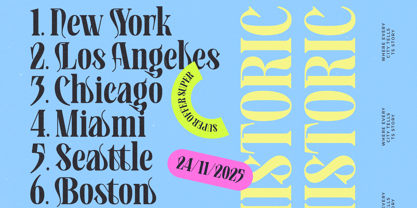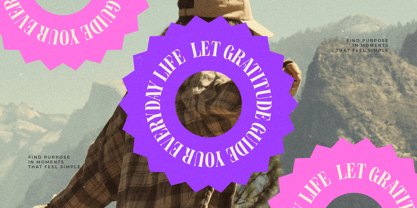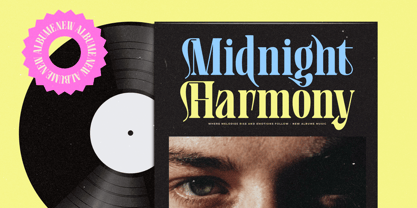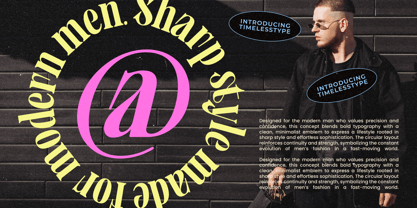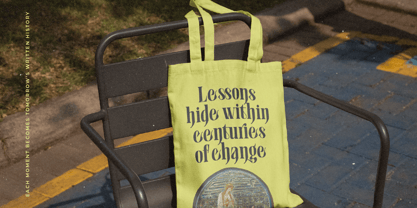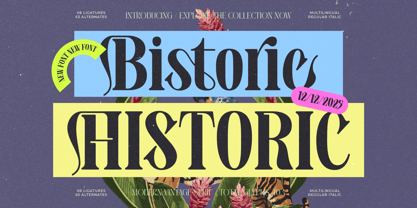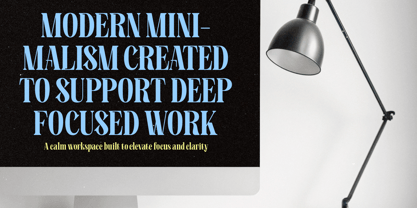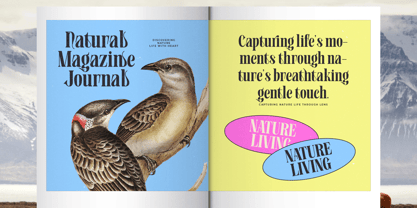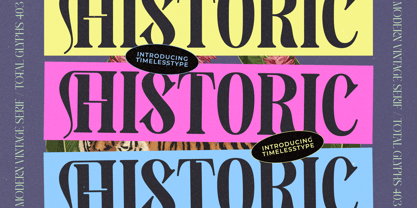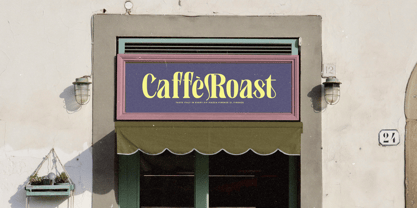
Bistoric Historic
by Timelesstype Studio
The Bistoric Historic Font Family was designed by Heru Utama Putra and published by Timelesstype Studio. Bistoric Historic contains 2 styles and family package options. More about this family
Bistoric Historic is a modern-vintage serif display font built with sharp curves, elegant contrast, and expressive terminals. Its character shape blends classic editorial style with a contemporary artistic twistperfect for standout branding, magazine headlines, packaging, posters, and boutique identity work. With 8 ligatures and 63 alternates, this font gives designers huge stylistic flexibility, allowing titles to shift from refined and formal to bold and decorative. The mix of high-contrast strokes and ornamental serifs delivers a timeless yet modern visual presence, making it ideal for projects that want to feel artistic, premium, and historically inspired without losing a fresh, modern edge.